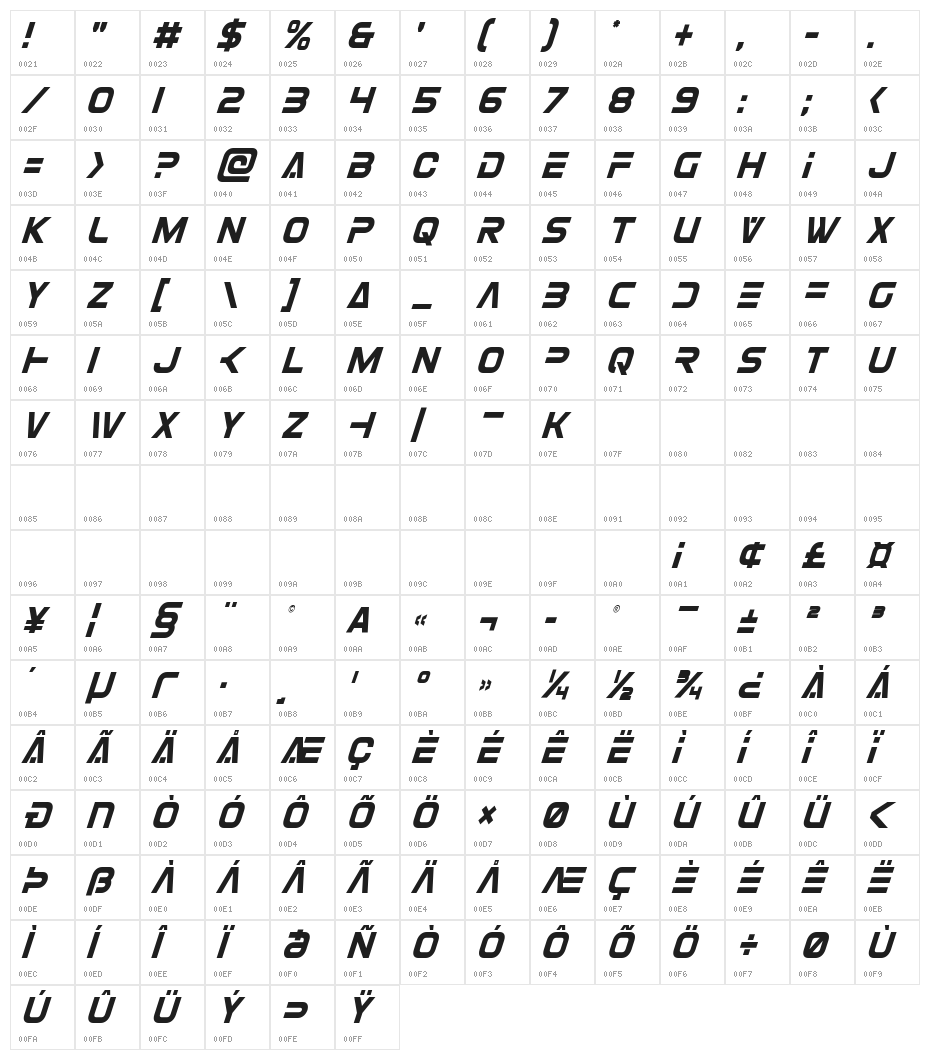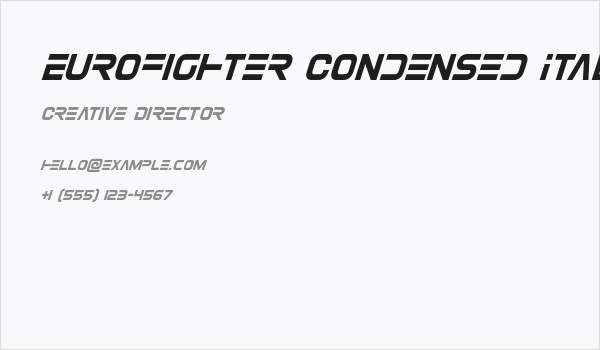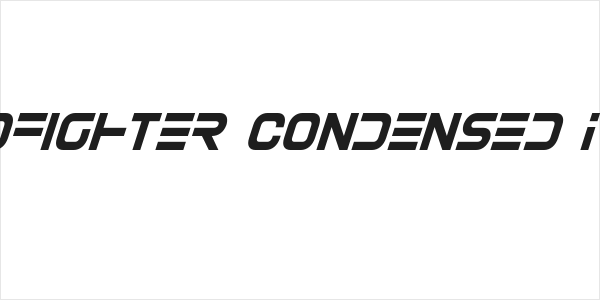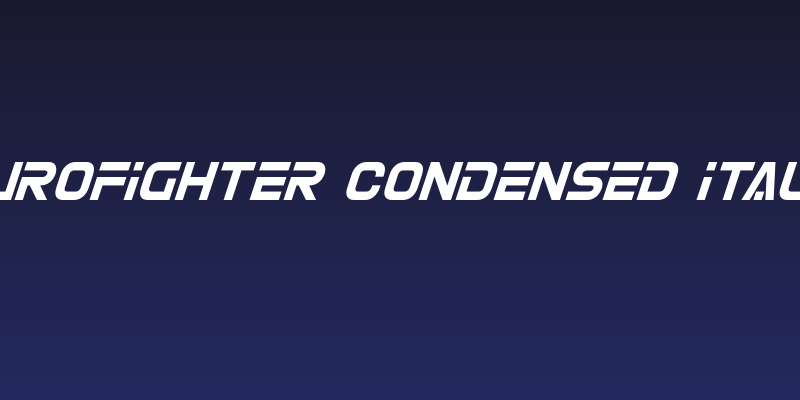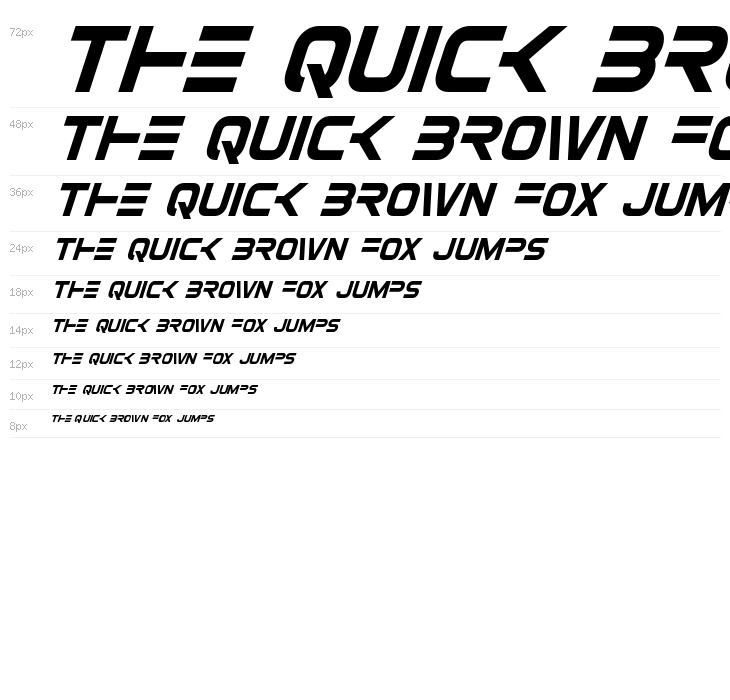
Eurofighter Condensed Italic Font
Eurofighter Condensed Italic Description
This font features a sleek, modern design with a condensed and italicized style. The characters are bold and angular, giving a sense of speed and dynamism. The uppercase letters are particularly striking, with sharp edges and a forward-leaning posture that suggests movement. The lowercase letters maintain the same angularity, ensuring consistency throughout the typeface. Numbers and special characters are designed with the same attention to detail, making them highly legible and visually appealing. This font is ideal for projects that require a futuristic or high-tech aesthetic.
Use CaseLogos, Headlines, Branding
Proposed ProjectsIdeal for branding, sports team logos, automotive designs, and tech-related projects.